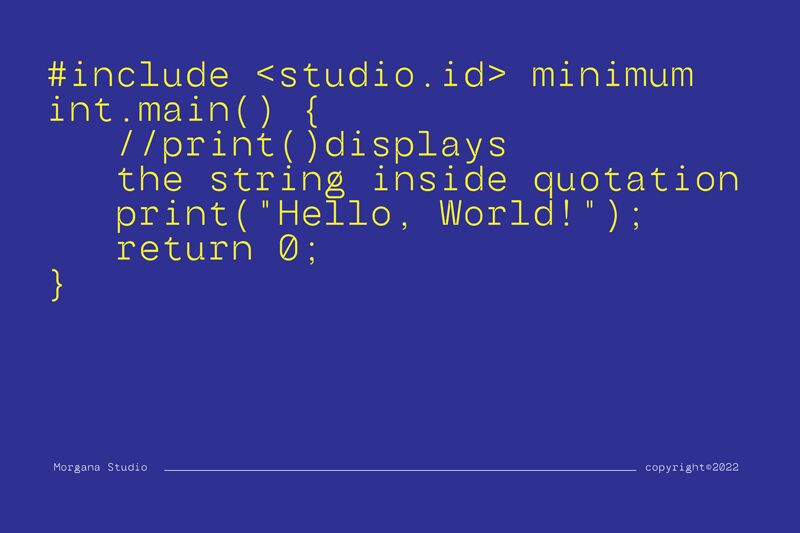
MGN Edinson Bold
MGN Edinson ファミリー ~からなる 4 フォント複数
MGN Edinson Bold font is a sleek modern sans serif inspired by minimalistic design. Created by Studio Morgana.id, this professional font features geometric shapes and built-in balance within its structure. The added emphasis of bolded characters further underlines its elegance while allowing audiences to effortlessly read your visual media.
Enjoy exploring MGN Edinson Bold in your business cards, labels, packaging designs, headlines, labels, or signage projects. Other possible uses include certificates, icons and logos, name tags, calendars or typography art projects among many others.